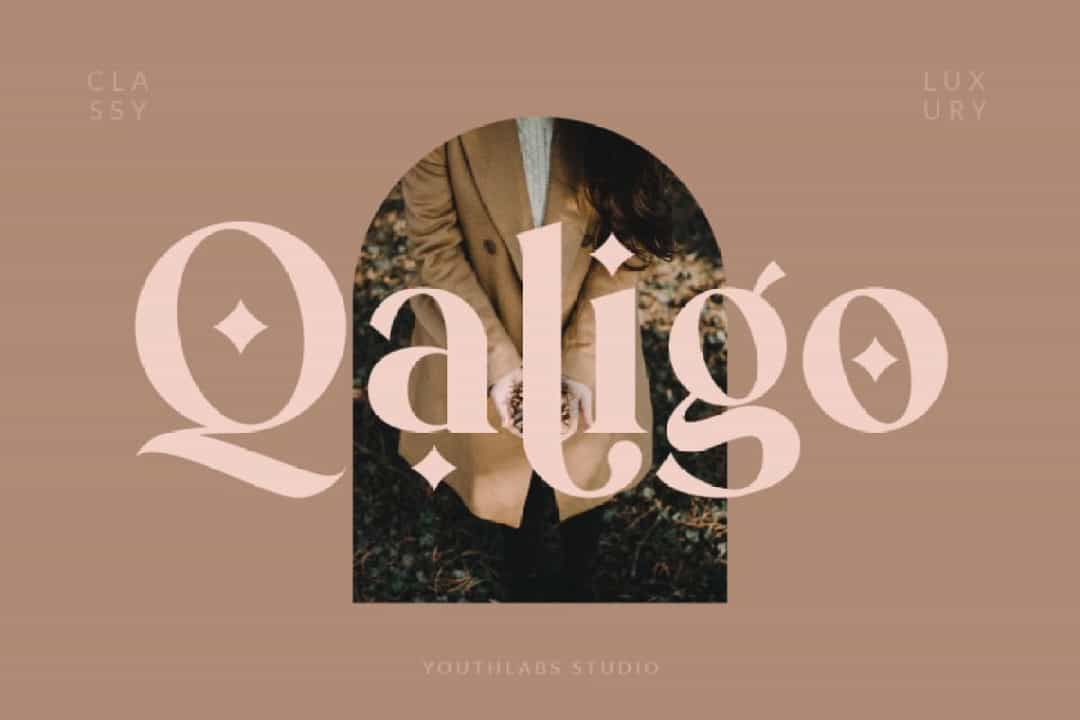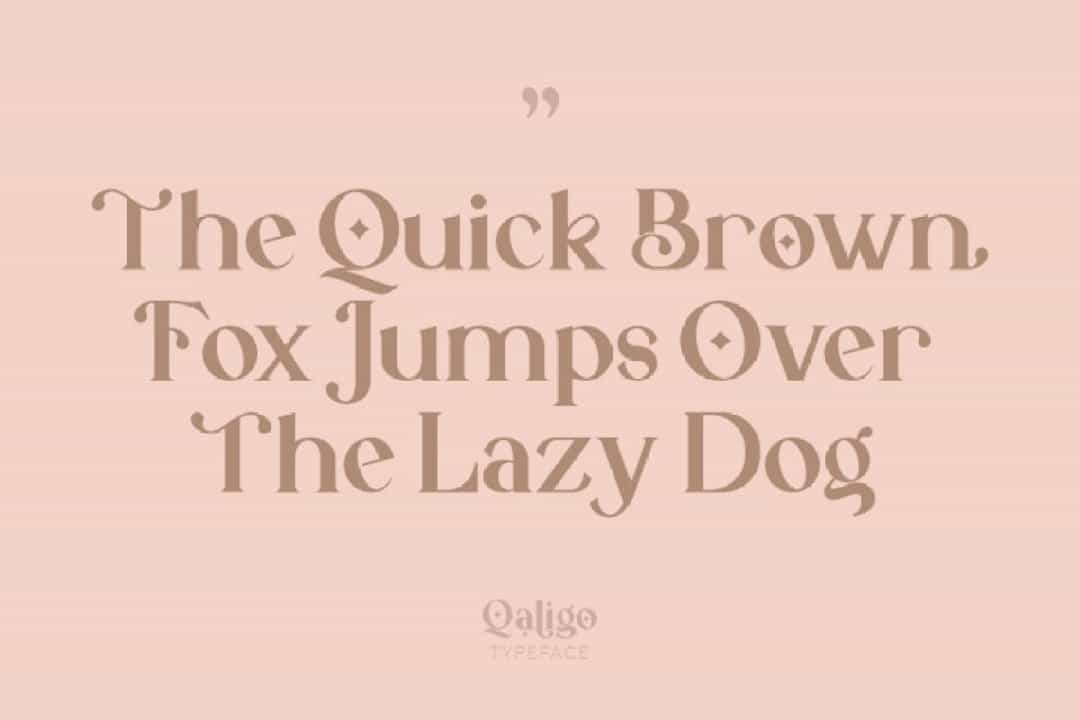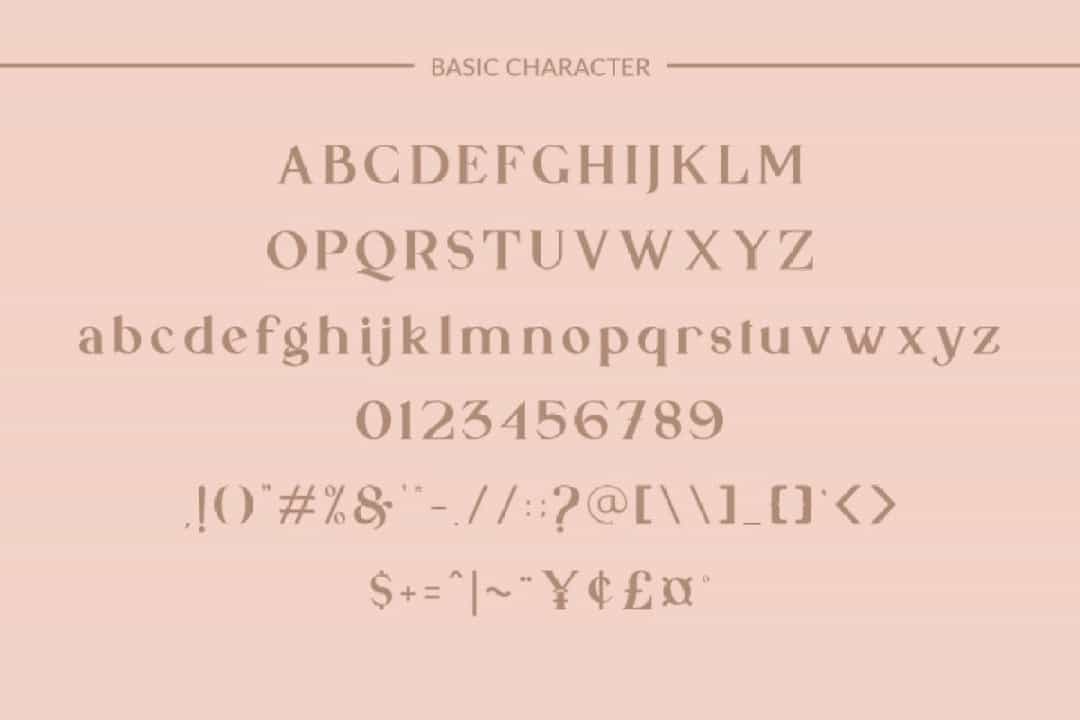
Qaligo elegant font is the newest addition to Serif font family which exemplifies luxury form with additional open type features and smoother curves to emulate Modern and Luxury Typography. Qaligo Serif Font has a fully proportional font that can be used in the creation of numerous artwork with the base characters that offer over 250 alternates and already designed logos.